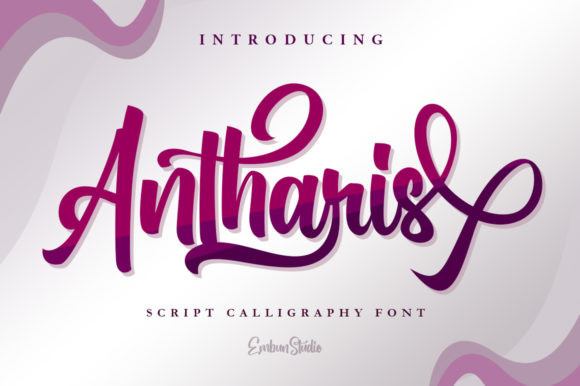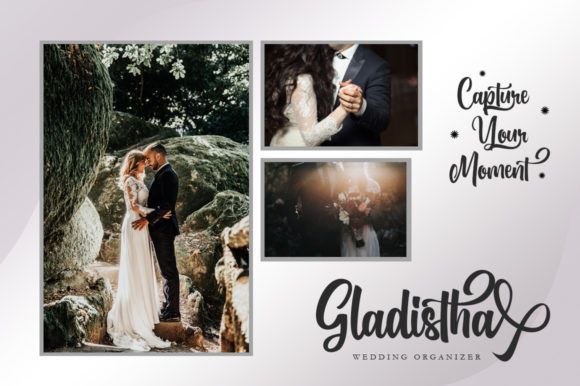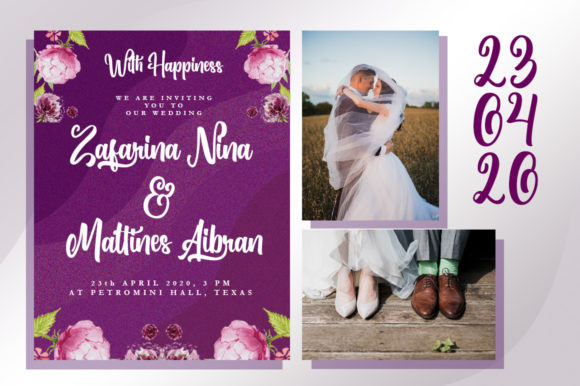
Antharis Font
Antharis is a magical script font carefully created with a touch of elegance. It will elevate a wide range of design projects to the highest level, be it branding, headings, wedding designs, invitations, signatures, logos, labels, and much more!